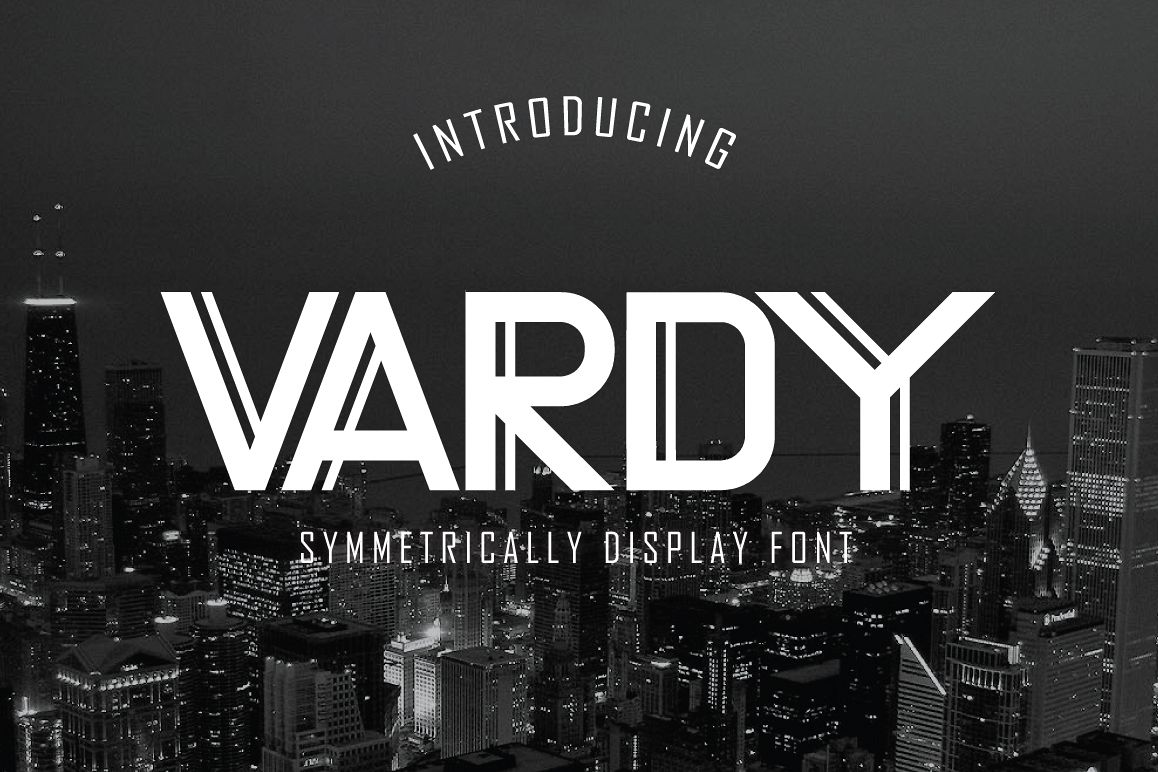
Vardy Display Typeface
Introducing "Vardy Display Typeface" Can be used for various purposes namely branding, headings, logos, wedding invitations, t-shirts, letterheads, labels, news, posters, badges etc. Product Content: Vardy.otf Vardy.ttf Vardy Web Font (eot, svg, woff) Features: Uppercase Lowercase Numeral & Punctuations (Open Type Standard) Use a program that supports OpenType features such as Adobe Illustrator CS, Adobe Indesign & CorelDraw X6-X7 to access the full features of this typeface. How-to pdf included in the package. Feel free to contact me for additional supports. Personal and Commercial use are permitted